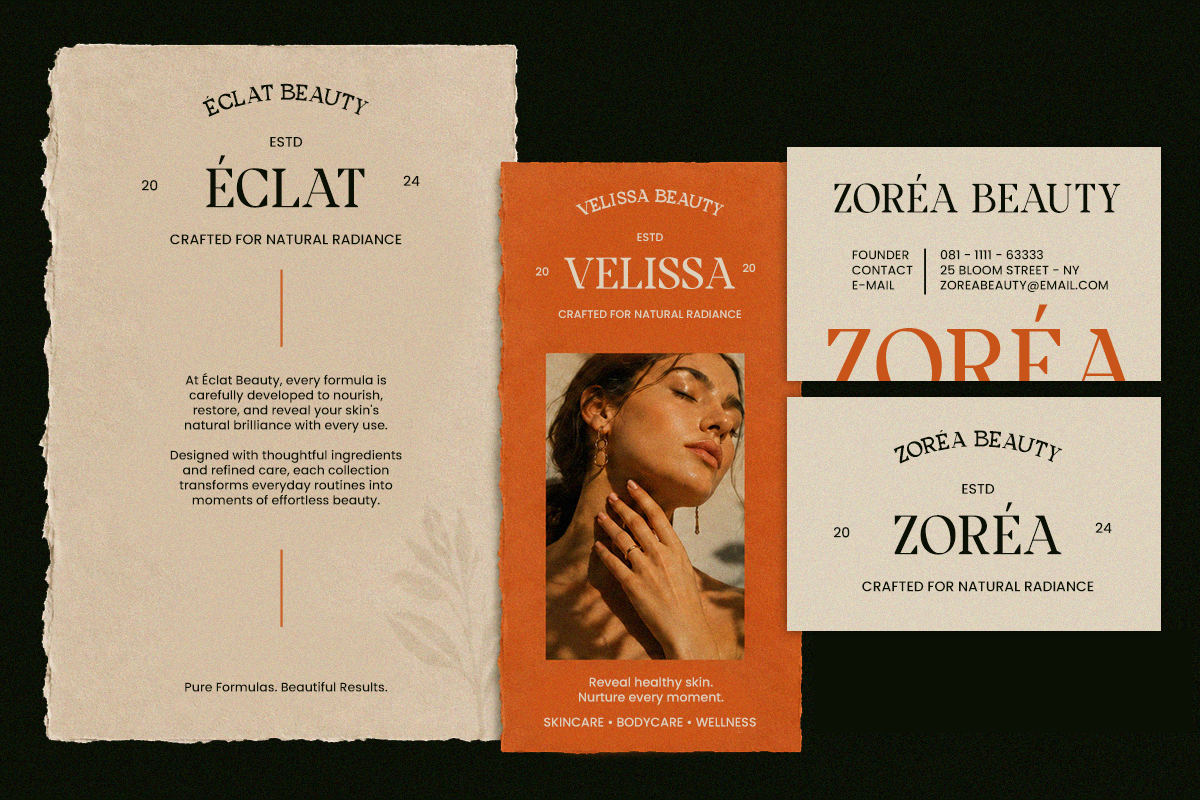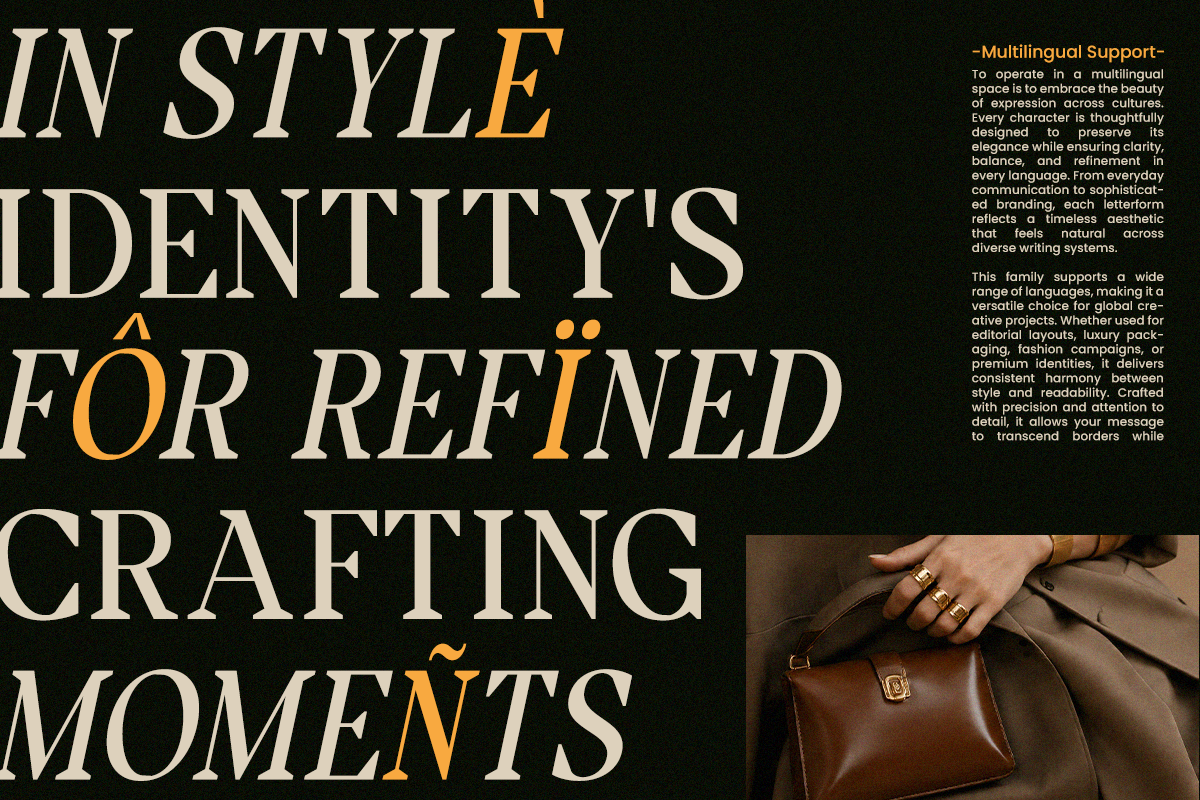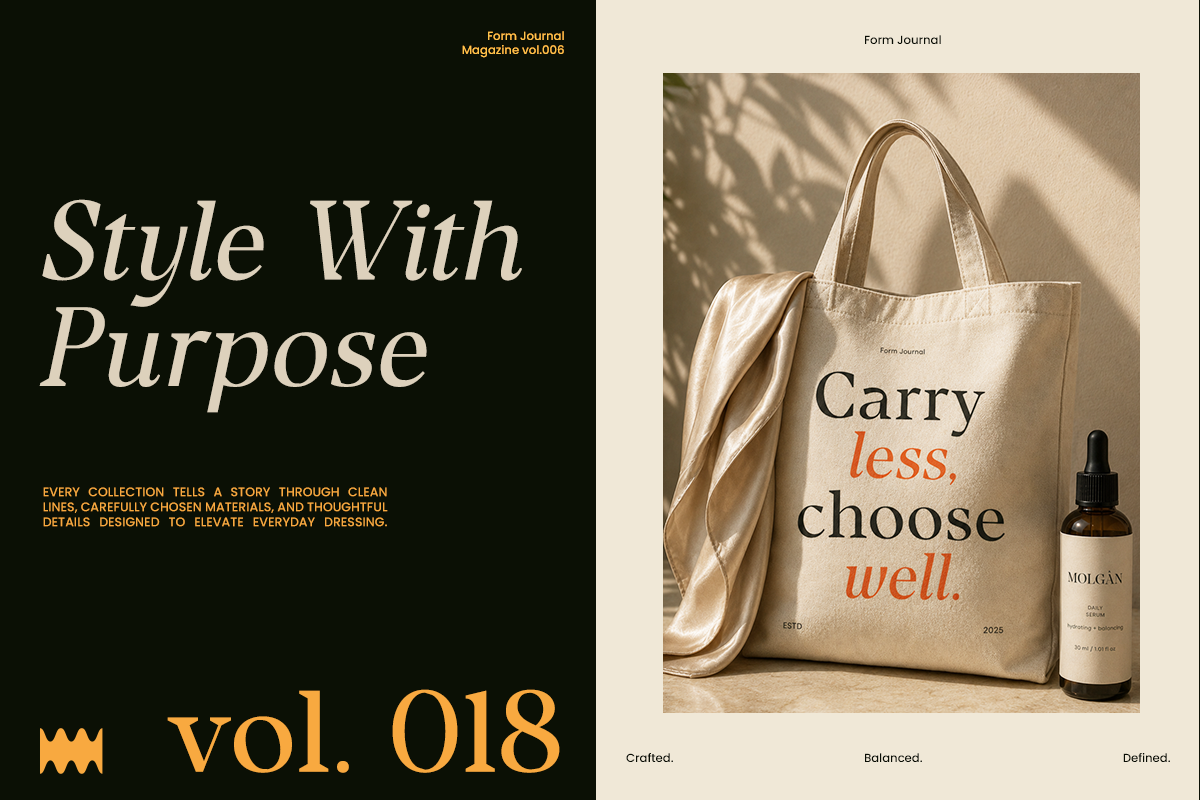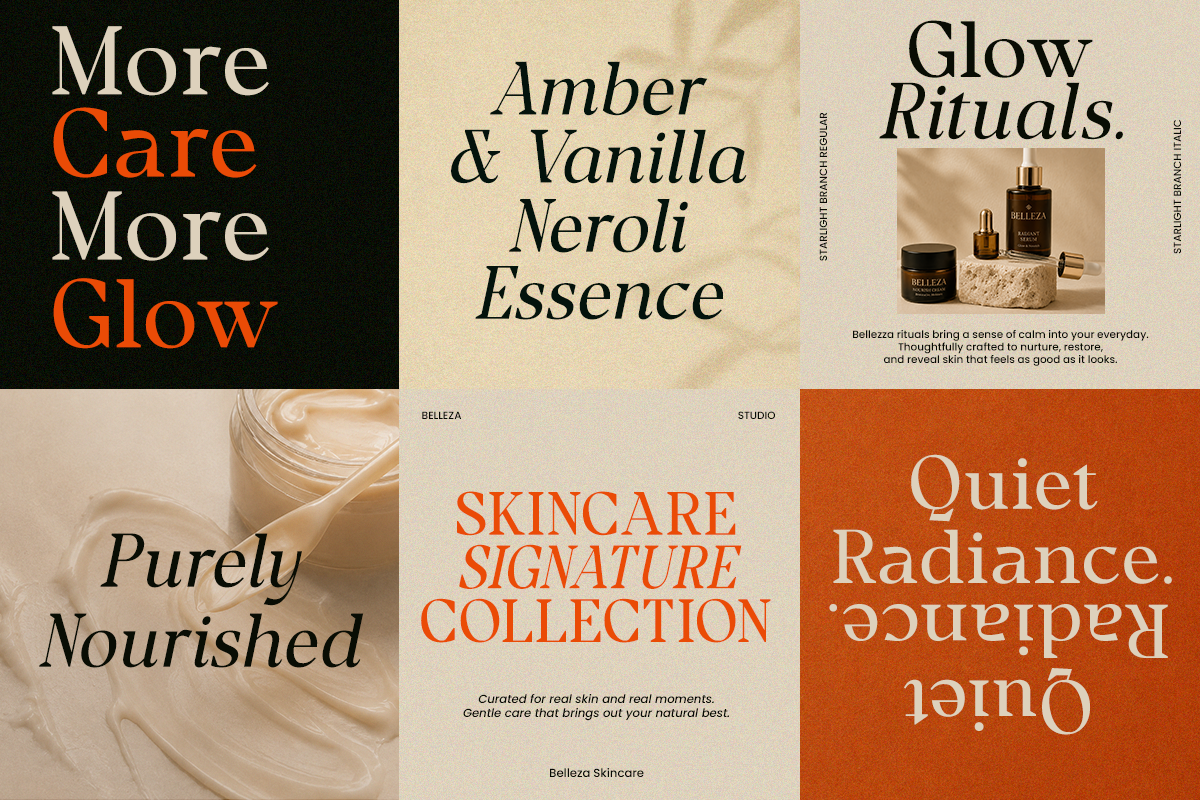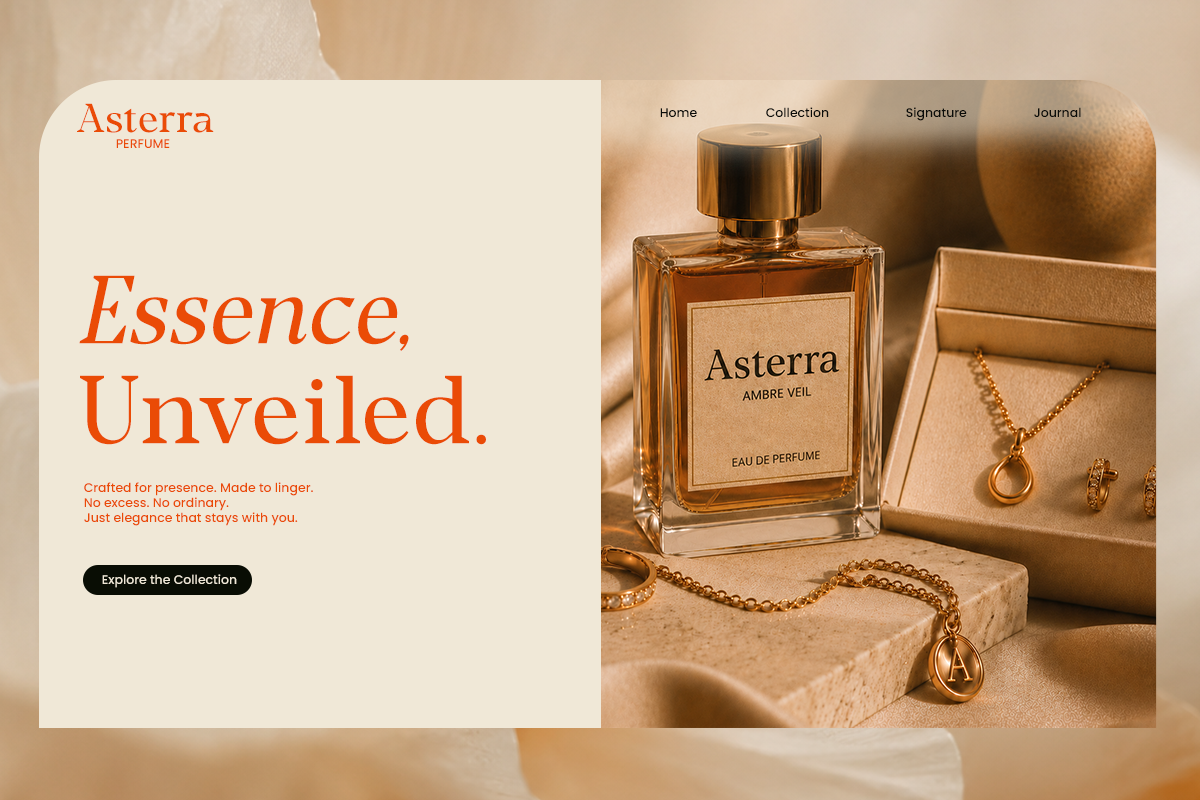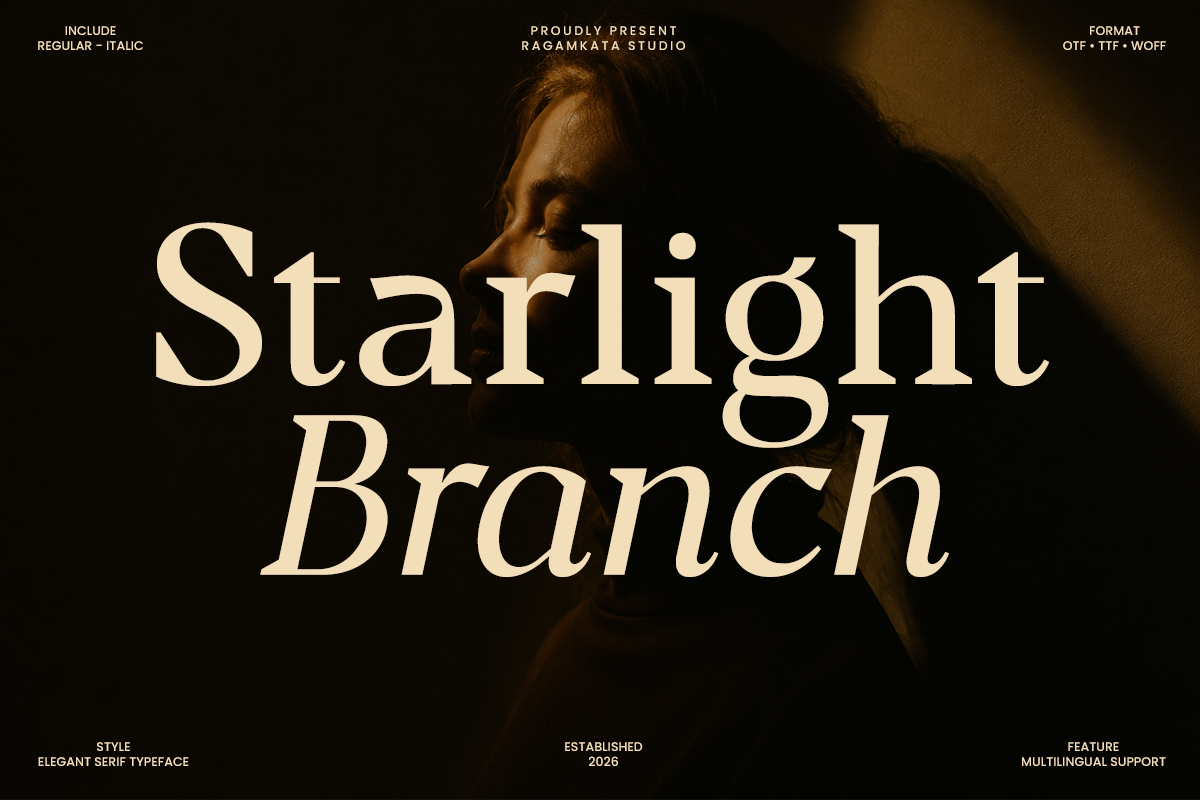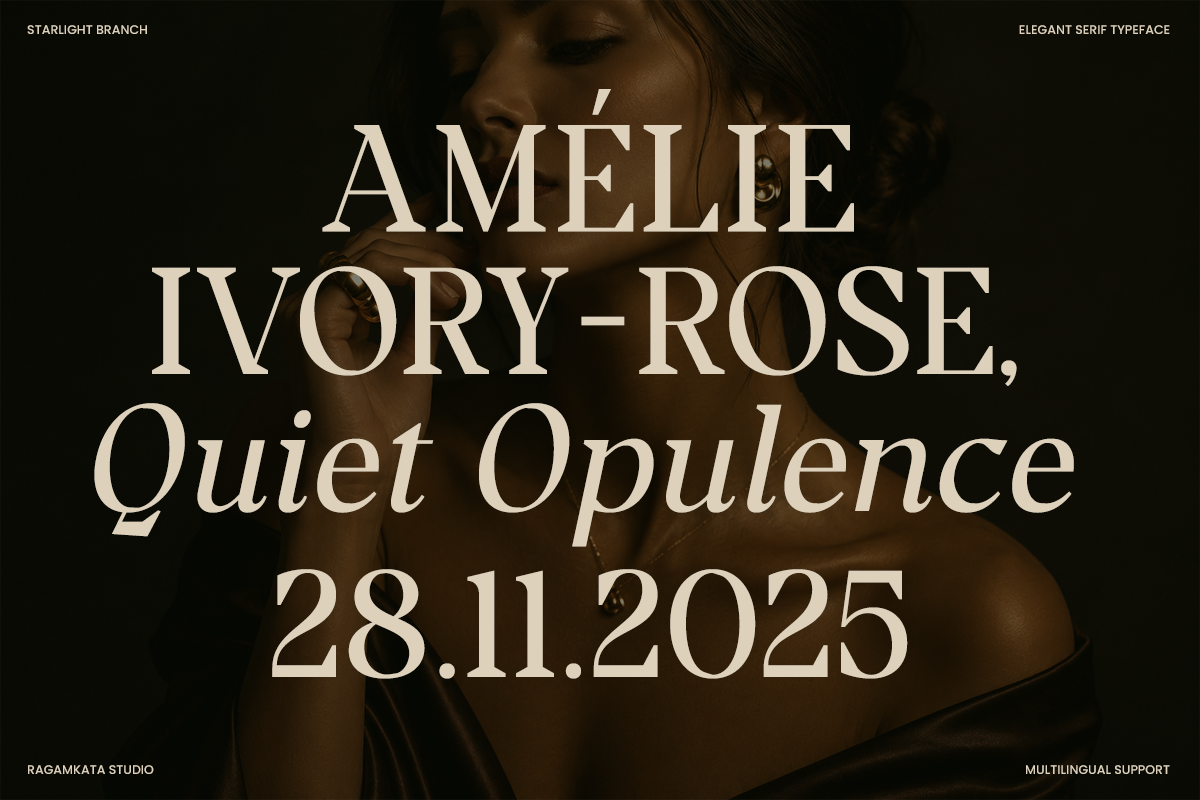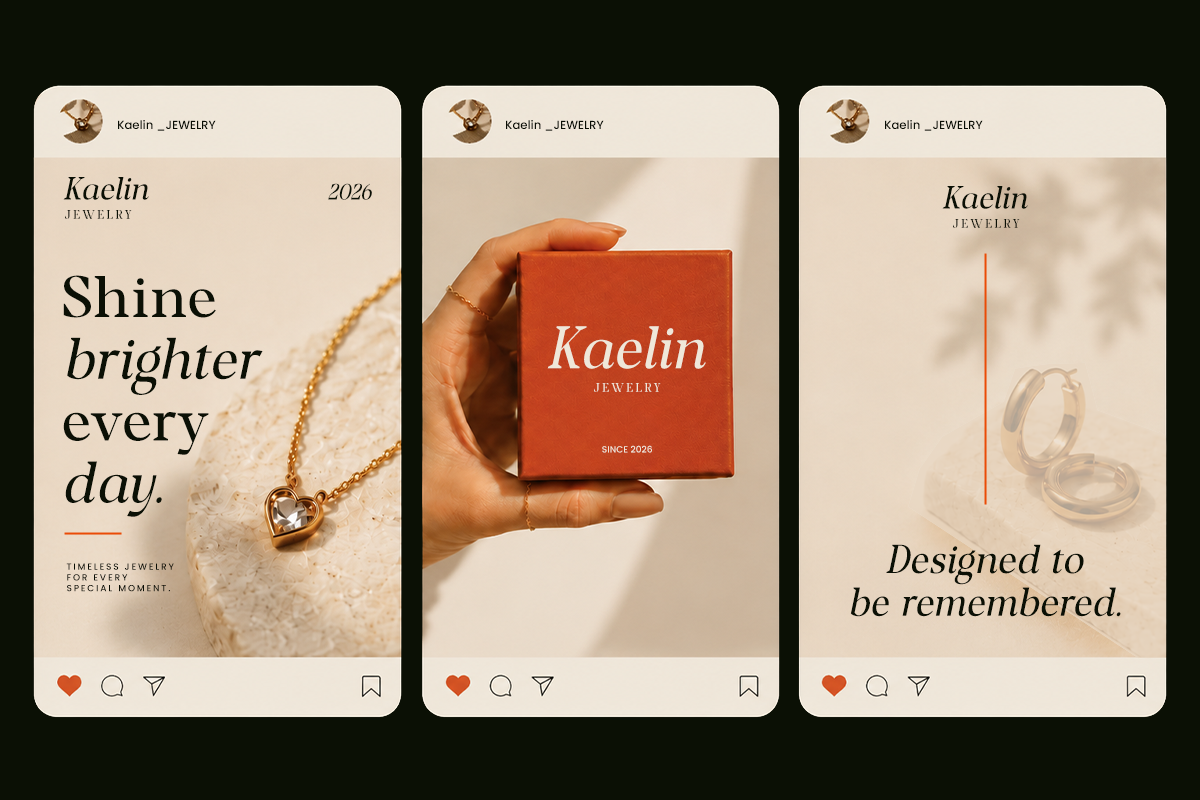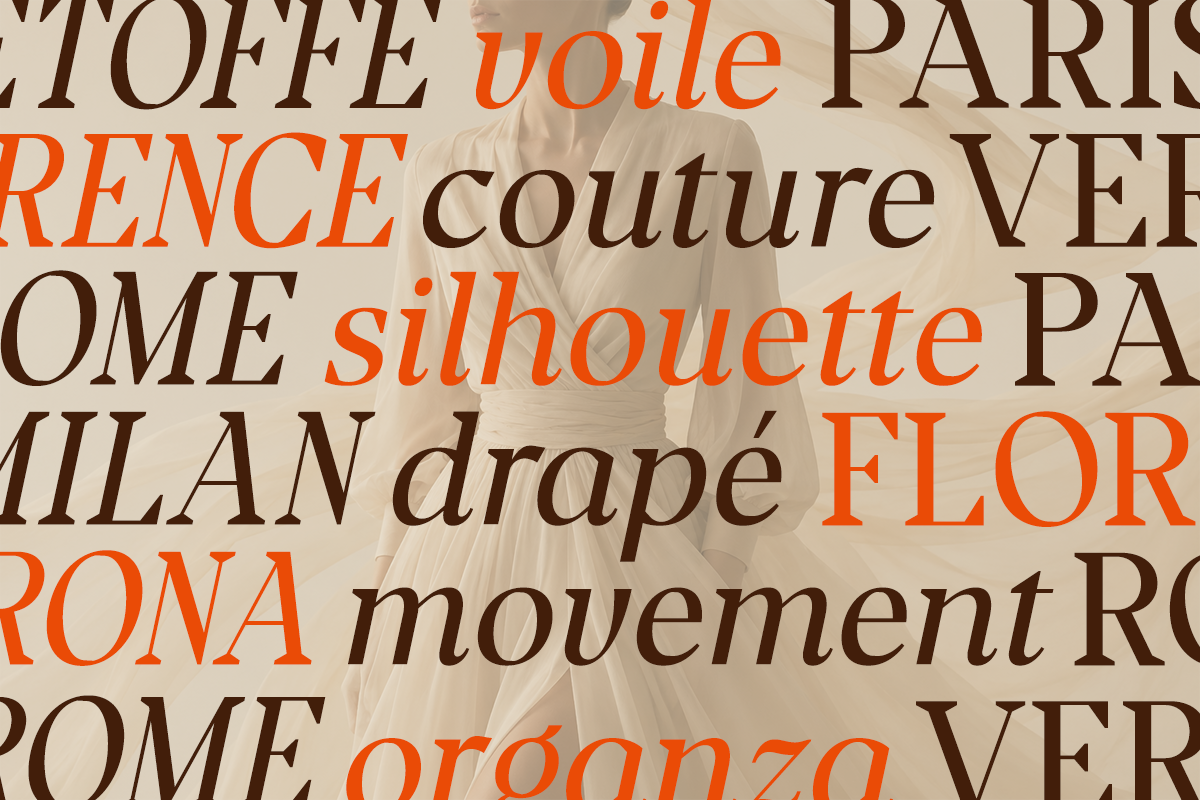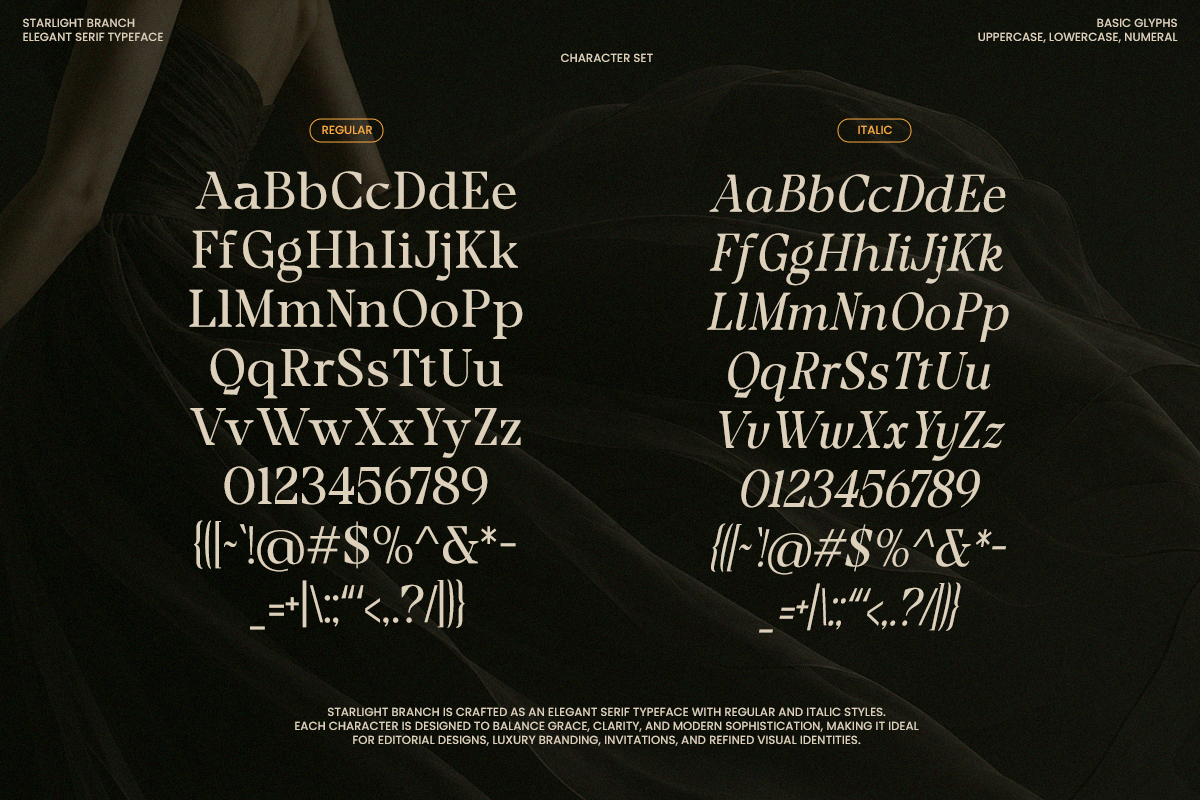
Starlight Branch – Luxury Serif Font
Starlight Branch is an elegant serif font designed to bring a luxurious and sophisticated character to your creative projects. Its refined letterforms, high-contrast strokes, and editorial personality make it a beautiful choice for premium visual identities.
Perfect for fashion branding, beauty and skincare projects, luxury logos, editorial layouts, magazine covers, packaging, invitations, posters, headlines, and sophisticated social media designs. Starlight Branch adds a timeless and graceful touch to both modern and classic compositions.
Regular and Italic Style
Upperase and Lowercase
Number, Symbol, and Punctuation